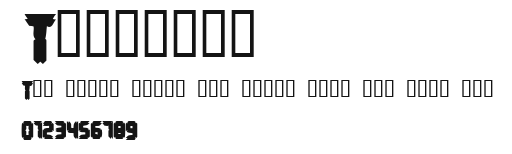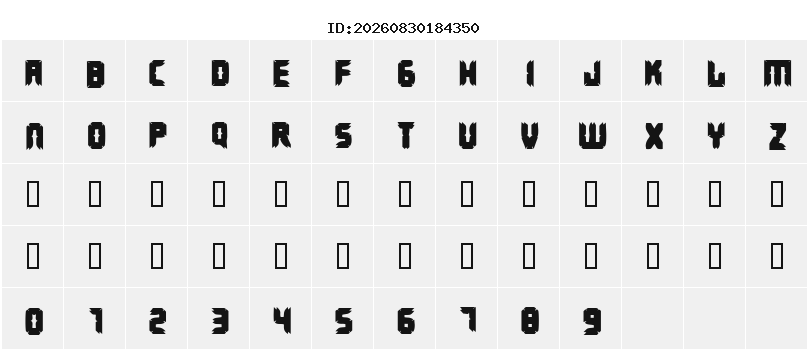
Terminus Preview
• Font Name: Terminus
• Font ID: Macromedia Fontographer 4.1 Terminus
• Full Font Name: Terminus
• Version: Macromedia Fontographer 4.1 4/26/00
• PostScript Name: Terminus
About Terminus.ttf
Terminus.ttf is a modern, elegant sans-serif font designed for ultimate readability and visual harmony. Perfect for branding, headlines, web design, and print materials.